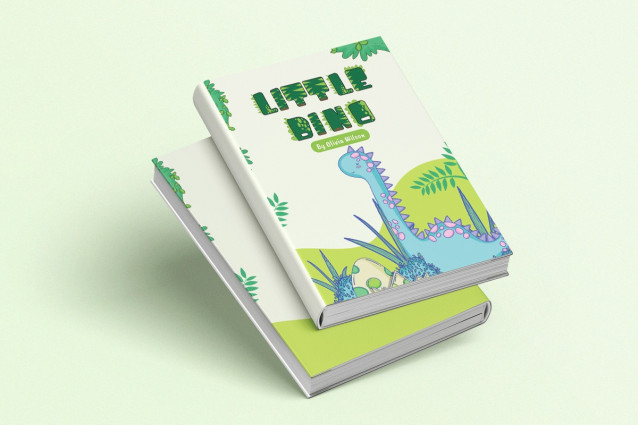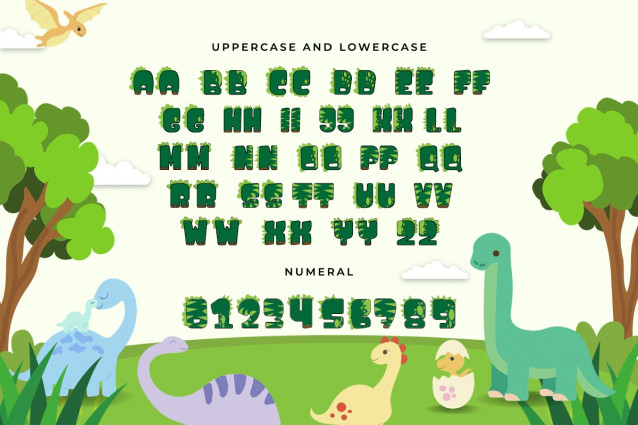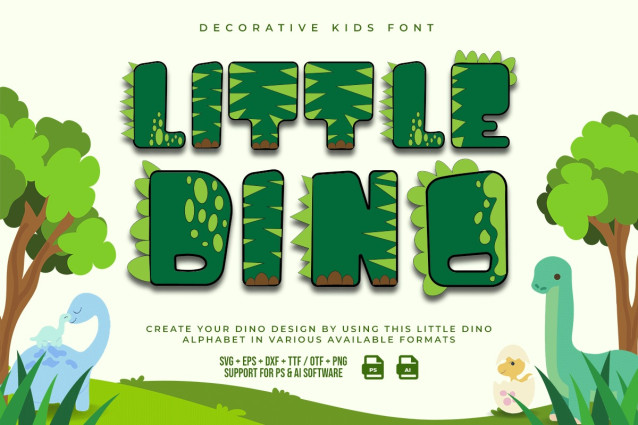
Little Dino Font
Little Dino Decorative Kids Font was created to bring a cute and fun impression to anyone who sees it. This is in line with the characteristics of letters that are unique, have various accents, and are funny. Each letter in this font is a little difficult to distinguish. People who read texts using this type of font need to make a lot of effort to read and understand them. As the name suggests, Little Dino Decorative Kids Font has a shape that depicts dinosaurs. This font is suitable for children’s equipment, such as clothing item designs, because its shape is simple and cute. This type of font is suitable for printing in large sizes and looks good when viewed up close. For people who like a cheerful and cute feel, Little Dino Decorative Kids Font will be a good choice. This font is also suitable for use as a digital font, such as in videos, film titles, and displaying quotes on social media. Our collection of Display fonts are compatible for use as; Figma Fonts, Canva Fonts, Freepik Fonts, and Adobe Fonts. They also function as Windows Fonts and Apple Fonts. For your social media needs, you can use and install fonts in our Espot & Futuristic font collection to use as Instagram Fonts, Facebook Fonts, and Twitter Fonts.